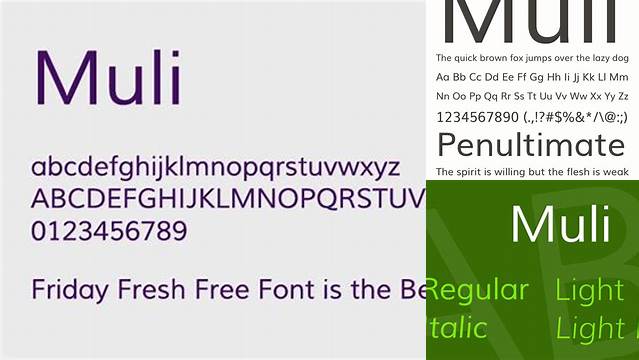
Muli Font: Your Guide To Google Fonts' Versatile Star
Hey there, font fanatics! Today, we're diving headfirst into the world of Muli, a stunning sans-serif font hosted on Google Fonts, brought to you by the magic of https //fonts.googleapis.com/css?family=muli&display=swap
. This font is like that perfect friend – reliable, stylish, and incredibly versatile. Whether you're a designer crafting a sleek website, a writer polishing up a blog post, or just someone who appreciates good typography, Muli has got you covered. In this comprehensive guide, we'll explore everything you need to know about Muli, from its design and history to how to implement it in your projects. Get ready to unleash the power of Muli and transform your designs!
Decoding the Muli Font: A Deep Dive
Alright, let's get into the nitty-gritty of what makes Muli tick. Muli is a geometric sans-serif typeface, meaning it's clean, modern, and devoid of those little decorative strokes (serifs) you see on some fonts. This gives it a contemporary feel that works beautifully in various contexts. The design of Muli is credited to Vernon Adams, a talented designer who understood the importance of creating a functional yet visually appealing font. It was designed with legibility in mind, making it easy on the eyes even at smaller sizes. Muli offers a wide range of weights and styles. This is where Muli truly shines. You can choose from a lighter weight for body text, which provides a gentle reading experience, or a heavier weight for headings, giving emphasis and clarity. This versatility allows you to create a cohesive and visually interesting design that keeps readers engaged. The font family includes several weights such as Regular, Bold, ExtraBold, and others. Each weight serves a specific purpose in the design hierarchy. For example, you might use Bold for headings, Regular
for body text, and a Light
weight for subheadings. The choice of weight can influence the overall mood of the project. This means you can achieve a wide variety of effects with just one font family. From a sleek and minimalist aesthetic to a bold and assertive design, Muli empowers you to set the perfect tone for your project. Muli is more than just a font; it is a tool that allows designers to enhance visual communication. With this font, designers can ensure that their message is conveyed effectively, while also adding a touch of elegance and modernity to their designs. The design characteristics of the font are crucial. It impacts readability, aesthetic appeal, and the overall impression a design makes. Understanding these characteristics allows designers to make informed choices that contribute to the success of their projects.
The Anatomy of Muli: Exploring Its Design Elements
The structure of the Muli font is based on a clean geometric structure. The rounded corners of some letters provide a friendly feel. The lowercase 'g' has a double-story structure that adds to its uniqueness. The x-height (the height of the lowercase 'x') is quite generous. This helps improve legibility, particularly in smaller sizes. The spacing and kerning (the space between letters) is also carefully considered. This contributes to the overall readability and visual harmony of the text. Muli does not just display letters; it speaks volumes about the project's brand identity, and enhances visual appeal. The balance between geometric precision and subtle curves offers a modern feel without being overly rigid. This balance ensures that Muli can be applied in various contexts, from body text to headlines, while maintaining excellent legibility and a pleasing aesthetic. The designer thoughtfully calibrated the spaces between the characters. Correct spacing is key, as it influences readability and the visual flow of the text. Careful consideration has been given to the kerning pairs. This involves the adjustment of spaces between specific letter combinations to optimize the appearance of text. Careful adjustments in kerning are also made to the letter spacing. By managing the visual relationships between letters, Muli helps achieve an aesthetically pleasing and highly readable output. In sum, Muli font design is a great example of the synergy between aesthetic and functional properties, designed with both aesthetics and functionality in mind. By understanding the elements of Muli, you can use them better and get the most out of your design.
History and Origins of the Muli Font: A Closer Look
The story of Muli begins with its designer, Vernon Adams. He crafted this font in 2010. The design of Muli was part of a larger project, aimed at creating a cohesive family of fonts optimized for screen display and print. The goal was to provide a modern, versatile sans-serif typeface. The primary design goals were to create a font that was accessible, highly readable, and suitable for a wide variety of applications. Muli was quickly embraced by the design community due to its clean and friendly aesthetic, as well as its excellent legibility. This font was distributed through Google Fonts, making it freely available to designers. This accessibility further boosted its popularity. The launch of Muli on Google Fonts significantly expanded its reach. Google Fonts' open-source nature ensured its widespread use. The decision to make Muli available on Google Fonts played a crucial role in its popularity, as it became easily accessible to designers. Google Fonts' open-source licensing further democratized access, allowing anyone to use it without any cost. This simple act of making it accessible played a huge part in spreading its use. The inclusion of Muli in the Google Fonts catalog allowed it to reach a broader audience, which accelerated its adoption by designers worldwide. The font also met the needs of the web, and it has evolved over the years through a series of updates, as Google Fonts has continued to improve the typeface. These updates have ensured the font's suitability and performance across the latest devices and browsers. This helped it stay relevant in a fast-paced technology world. This continuous support has kept Muli fresh and responsive to the needs of its users.
Vernon Adams: The Visionary Behind Muli
Vernon Adams, the creative force behind Muli, was a renowned typeface designer. His vision extended beyond creating beautiful fonts; he wanted to create functional, versatile designs that met the requirements of contemporary design. His dedication to crafting high-quality typefaces is apparent in Muli, as it is a combination of aesthetics and functionality. Adams' legacy endures not only in Muli, but also in other fonts that he designed. These fonts are still used widely. His design process included extensive testing and refinement to ensure legibility. He made it readable on a variety of devices, which is very useful. He used the fonts for web and print. Adams' approach to font design was guided by principles of clarity, usability, and design quality. The goal was to make each typeface as practical as possible. His work provided a unique perspective in the world of typography. Adams' influence extended beyond the design itself, shaping the way designers approach typeface choices. His work encourages designers to explore typography, to ensure the aesthetic and functional properties of fonts. Adams' impact is clear, he established the importance of legibility and versatility, while making his designs accessible to everyone. Through Google Fonts, his work has a lasting legacy.
Why Choose Muli? Benefits and Use Cases
So, why should you choose Muli for your projects? Let's break down the key benefits. Its modern and clean design is incredibly versatile, making it suitable for a wide variety of applications. It's also known for its excellent readability, making sure your message comes across. Its range of weights and styles adds flexibility to your design, and it's free, which makes it accessible. Muli's versatility and readability make it ideal for websites, apps, and print materials. You can make it look exactly how you want it. Because of its flexibility, many designers and companies choose Muli. Muli is perfect for creating a consistent brand identity. By using Muli, you make your design look more professional, making your brand stand out. Its adaptability and aesthetic make it the right choice for multiple projects.
Muli for Websites and Digital Design
For websites and digital design, Muli is a fantastic choice. Its clean lines and excellent readability make it perfect for both body text and headlines. Imagine a website with sleek, modern look. Muli can play a very important role in that design. Its availability of weights lets you create a visual hierarchy that guides the reader's eye. Use the light weight for body text, a bold weight for headlines, and a medium weight for subheadings. The versatility of Muli allows for different visual effects, depending on the need. For example, a tech blog might opt for a minimalist look, while a creative agency might use bolder styles. Moreover, the design of Muli is optimized for screen display. This means it renders beautifully on all devices. You don't have to worry about pixelation or distortion, even on high-resolution screens. Its suitability is guaranteed, whether you are designing a user interface (UI) or a marketing website. The use of Muli makes your site both easy to read and visually appealing, contributing to better user engagement. The adaptability of Muli is its strong point. The adaptability of Muli makes it a great choice for various designs. You can make the website as minimalist as you want, and Muli will fit. Its flexibility allows designers to adjust the font and meet the needs of each project.
Utilizing Muli in Print and Branding Materials
Muli also shines in print and branding materials. Its readability makes it ideal for brochures, posters, and business cards. Its clean, modern look gives a professional look to these materials, enhancing your brand image. The various weights and styles allow for consistency and visual appeal in the design. For example, you can use the same font across all marketing materials to create a brand. For example, use a bold weight for headlines, while the regular weight will be perfect for body text. This will establish a consistent and recognizable brand identity. Muli's clarity also makes it very helpful for posters and other marketing materials. You will be able to make the information stand out while maintaining a consistent aesthetic. Furthermore, Muli’s versatility extends to various visual contexts, allowing it to adapt to different layouts and designs. You can design various brand materials and ensure consistency. In other words, Muli offers the visual consistency needed to establish a strong brand identity. Its ability to create various designs, makes it the ideal choice for designers. Muli gives designers the ability to create eye-catching designs.
Making the Most of Muli: Best Practices
To make the most of Muli, there are a few best practices to consider. First, choose the right weight and style for each element. This helps create a clear visual hierarchy and guides the reader's eye. For example, use heavier weights for headlines to make them stand out, while using lighter weights for the body to ensure readability. Secondly, carefully consider the size of the font, and the line spacing (leading). Adjust them to ensure that the text is easy to read. A slight adjustment will make the text more readable and aesthetically pleasing. Also, pay attention to the colors and backgrounds of the design. Muli looks great on various backgrounds. Ensure that the contrast is appropriate to ensure legibility. Furthermore, test the design on different devices. This helps ensure that the font renders well across different screens and operating systems. Always remember to test your designs on a variety of devices, so you can achieve the best experience across platforms. This is also very useful for optimizing your website's performance. By applying these best practices, you can create visually appealing and engaging designs using Muli. This guarantees that your message is clear. Applying these techniques maximizes the impact of your work.
Implementing Muli in Your Projects: A Step-by-Step Guide
So, how do you actually use Muli in your projects? Let's take a look. If you're using Muli on the web, the easiest way is through Google Fonts, using that CSS snippet https //fonts.googleapis.com/css?family=muli&display=swap
. It's a quick and efficient way to add the font to your website. Google Fonts provides a simple method for embedding the font on your web page. Copy the provided code, and paste it into the <head>
of your HTML document. With just a few lines of code, Muli will be ready to use on your website. After embedding the font, you can apply it to elements on your web page. Use CSS to specify the font family. For example, you can select the body
tag and add font-family: 'Muli', sans-serif;
. This makes Muli the default font for your website. You can customize the font size, weight, and style. To do this, change the CSS properties. This allows you to create the design that will look exactly like you want. For print designs, Muli can be downloaded. Go to Google Fonts and select the font, download the font files in the format that suits your needs (usually TTF or OTF), and install it on your computer. When you open up your design software, you should be able to select the font from the font menu. Muli can be applied to text elements in your design software. You can change the size, weight, and style to match your design requirements. Remember that the correct implementation of the font is essential for success.
Step-by-Step: Adding Muli to Your Website with Google Fonts
Let's go through the steps of adding Muli to your website with Google Fonts. First, visit the Google Fonts website and find Muli. Select the weights and styles you want to use. Then, copy the provided <link>
code. Paste this code into the <head>
section of your HTML document. This will allow the browser to load the font. In your CSS file, add the font-family
property. Use the value Muli
, sans-serif. Use this property to apply Muli to the elements you want to style. For example, add the font to the body
tag. When the font loads and is applied, you can see the impact. Finally, preview the website in your browser. With these steps, you can embed Muli on your website easily. By following these steps, you can easily integrate Muli into your web design projects. It gives you the power to transform the look of your website. Google Fonts simplifies the font embedding process, making it accessible to both beginners and experienced web developers.
Downloading and Using Muli for Print Designs
Implementing Muli in print designs is also very simple. First, download the font files from Google Fonts. Select the desired weights and styles. The files will typically be in TTF or OTF formats. Then, install the font files on your computer. The installation method depends on the operating system you are using. After the installation is complete, open your design software. Locate the font menu. Muli should now be available in the font list. Now, you can add Muli to any text. You are free to change the size, weight, and style. Ensure that Muli is the right choice for the design. By downloading and installing Muli, you are able to use Muli in your designs. You can incorporate Muli with ease. Remember to choose the right style for your design. By following these easy steps, you can use Muli in your print projects.
Typography Best Practices with Muli: Maximizing Readability and Impact
To ensure your designs look their best, consider the best practices. Choosing the right font size is important, so your text is clear and easy to read. Experiment with different sizes. The text should also match the project's purpose. Make sure the text is visible. Also, you need to adjust the line spacing. The space between the lines can greatly impact the text's readability. Ensure that there's adequate space between the lines, and the text is not too crammed or too far apart. Use Muli weights to create a visual hierarchy. The heavier weights are great for headlines. The lighter weights will do the job for body text. Make sure that there is consistency in the font usage. Using the font consistently throughout the design creates a cohesive brand identity. Also, make sure that the background color and text color contrast is good, for better readability. Ensure that the colors work well together. By following these practices, you can make sure that your design with Muli is readable and impactful.
Font Size and Line Height: Balancing Readability and Aesthetics
When using Muli, pay close attention to font size and line height. These elements have a huge impact on readability and overall design. Choosing the appropriate size is essential for an effective design. Font size should be big enough to read, and also appropriate for the medium. A design's purpose should be considered. You can use large fonts for headlines, and smaller fonts for body text. Also, adjusting the line height (leading) is essential. The line height is the distance between lines of text. A correct line height ensures that the text is easy to read. A line height that is too small, will cause the text to be cramped. You need to ensure there is enough space. Experiment with sizes, and also adjust the leading. This will make the text more readable. For body text, you should use more space. For headlines, you can tighten it a bit. The correct balance can enhance the reading experience.
Color Contrast and Backgrounds: Making Text Pop
Color contrast plays a very important role in enhancing readability. The contrast between text and background is essential. It also determines how easy it is to read. Muli looks great on any background. For example, use a white background with dark text. Experiment with colors and backgrounds to find out which colors work best. Remember that the goal is to make the text easy to read. You can use contrast-checking tools. These tools ensure that your design meets accessibility requirements. This is important for making your design accessible to all users. A proper contrast makes the text visible. You can improve readability by using the correct contrast. Color can be used to emphasize key information and create visual interest. You can make the text pop by using the right contrast. This will create a better reading experience.
Customization and Variations of Muli: Exploring Design Possibilities
To further unlock Muli’s potential, explore its design possibilities. You can customize the font by combining different weights and styles. The font has different variations, such as the Regular
, Bold
, Italic
, and SemiBold
. By combining these, you can create a unique design. Experiment with different combinations. This will help you find the ones that match your brand. You can also pair Muli with other fonts to make the design more interesting. This allows you to create a better contrast. When selecting another font, ensure it matches the style of Muli. You can also change the font with CSS. To do so, you need to write the code that will customize the design. Remember that customization allows you to tailor Muli to your brand. By utilizing different weights and styles, you can make the font match your brand. The variations of Muli enable designers to create various designs.
Pairing Muli with Other Fonts: Creating Dynamic Designs
Pairing Muli with other fonts can make your design even more dynamic. The key to successful pairing is finding the right balance. You can pair Muli with different fonts. The goal is to create contrast. You can pair Muli, a sans-serif font, with a serif font. You can also mix it with a handwriting font. A good pairing enhances the overall design. When choosing a font, make sure the styles go well together. The fonts should enhance your brand. Using two different fonts can add variety to your design. You can also look at other font combinations. The correct pairing can draw attention. Consider using a sans-serif font for headlines. You can use a serif font for body text. This contrast makes it easy to distinguish. To ensure a cohesive design, you need to pick complementary fonts. The proper pairing will make your brand recognizable. Good pairings can enhance your design.
Advanced CSS Techniques for Muli: Fine-Tuning Your Typography
If you want to take your designs to the next level, learn advanced CSS techniques. These techniques allow you to fine-tune your typography. With CSS, you can customize the font weight, size, and style. You can change kerning and letter spacing. Adjusting the letter spacing can make a big difference. This will allow you to improve the text's appearance. You can also customize the text with CSS to enhance the overall design. Another method is to use text shadows. This can add a touch of style. These advanced techniques help you optimize the design. With CSS, you can have complete control. The advanced CSS techniques give designers more flexibility. By applying CSS techniques, you can make the font look exactly how you want it. This allows for greater control of the overall design. By mastering these methods, you can improve the quality of your design.
Muli Font in Action: Real-World Examples and Inspiration
Looking for inspiration? Let's explore real-world examples of Muli in action. Many websites use Muli for its clear and clean aesthetic. Check out design blogs, tech websites, or even corporate websites. You will see that Muli is versatile, with designs ranging from minimalist to bold. The font is very suitable for various applications. It can be utilized in various designs. Besides websites, Muli is also featured in print. Check brochures, posters, and other marketing materials. By looking at these examples, you can see the font's adaptability. You can get ideas. Inspiration is a very important part of the design process. Learn from the examples to get new ideas. Muli's versatility is clear when you explore real-world applications. By analyzing the projects, you can see the best practices. Remember, Muli can be applied to different designs. These examples give valuable insight. By exploring these projects, you can improve your design skills.
Websites and Design Projects Using Muli: Inspiration Gallery
Need some inspiration? Here's an inspiration gallery with websites using Muli. First, visit design blogs that use the font for headlines and body text. Observe how designers have used the font. Look at the design, the colors, and the layouts. Note how the font makes the information stand out. Check the websites of tech companies. The clean lines and clear text create a user-friendly experience. Pay attention to how these companies use the font. Also, look at corporate websites. Muli can enhance the brand image. Also, focus on the font's implementation. Look at the use of weights and styles. Use the gallery as a source of information. These websites will inspire you. The websites will also show how Muli enhances design. The gallery will give you ideas. By analyzing these websites, you can find the best practices for implementing Muli.
Muli in Marketing and Branding: Case Studies
Muli is great for marketing and branding. It is often used in marketing materials and branding. Consider the case studies of brands that have used Muli. Study the color, layout, and font combinations. Pay attention to their consistent style, and how it improves their brand image. Look at how they use Muli to create their identity. Also, analyze the different marketing materials. Look at the brochures, posters, and business cards, and see how the font makes the brand stand out. Learn from how the brands use the font. Check the websites and social media to see how they use Muli. Study these case studies, and get ideas. The goal is to see how the font is implemented in different contexts. The case studies will give you information about how to use Muli in a design. The case studies will guide you.
Conclusion: Embracing the Versatility of Muli
So there you have it! Muli is a fantastic font that is stylish and adaptable. With a clean design and readable structure, it has a lot to offer. Whether you're designing websites, apps, or print materials, Muli is an excellent choice. This guide will help you use this font. By understanding the advantages and application methods, you can create engaging designs. Muli is perfect for both designers and developers. Use this tool to improve your projects. You can get the most out of Muli if you use it correctly. The versatility of Muli makes it a great choice. Go ahead and start using Muli in your designs!